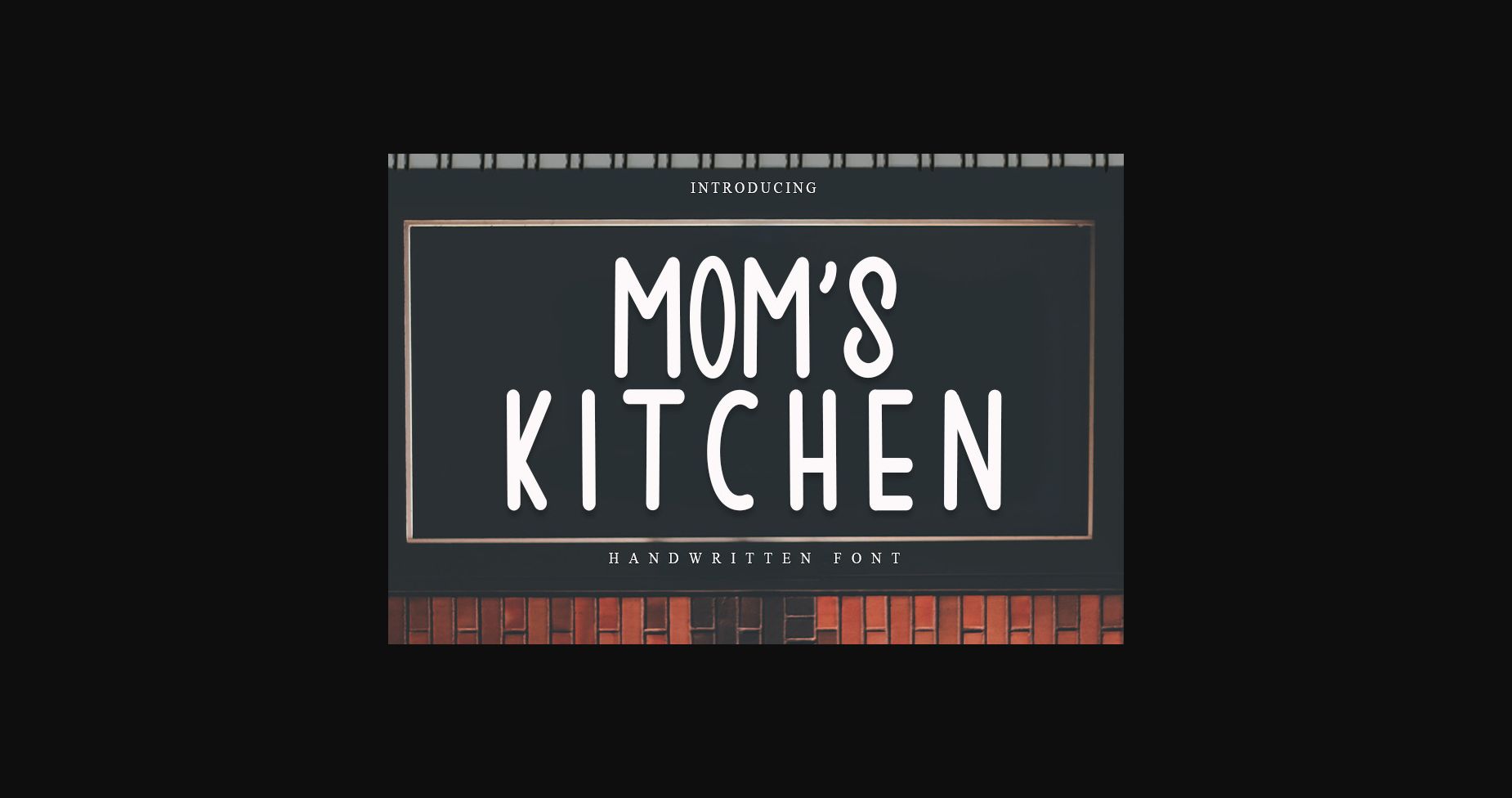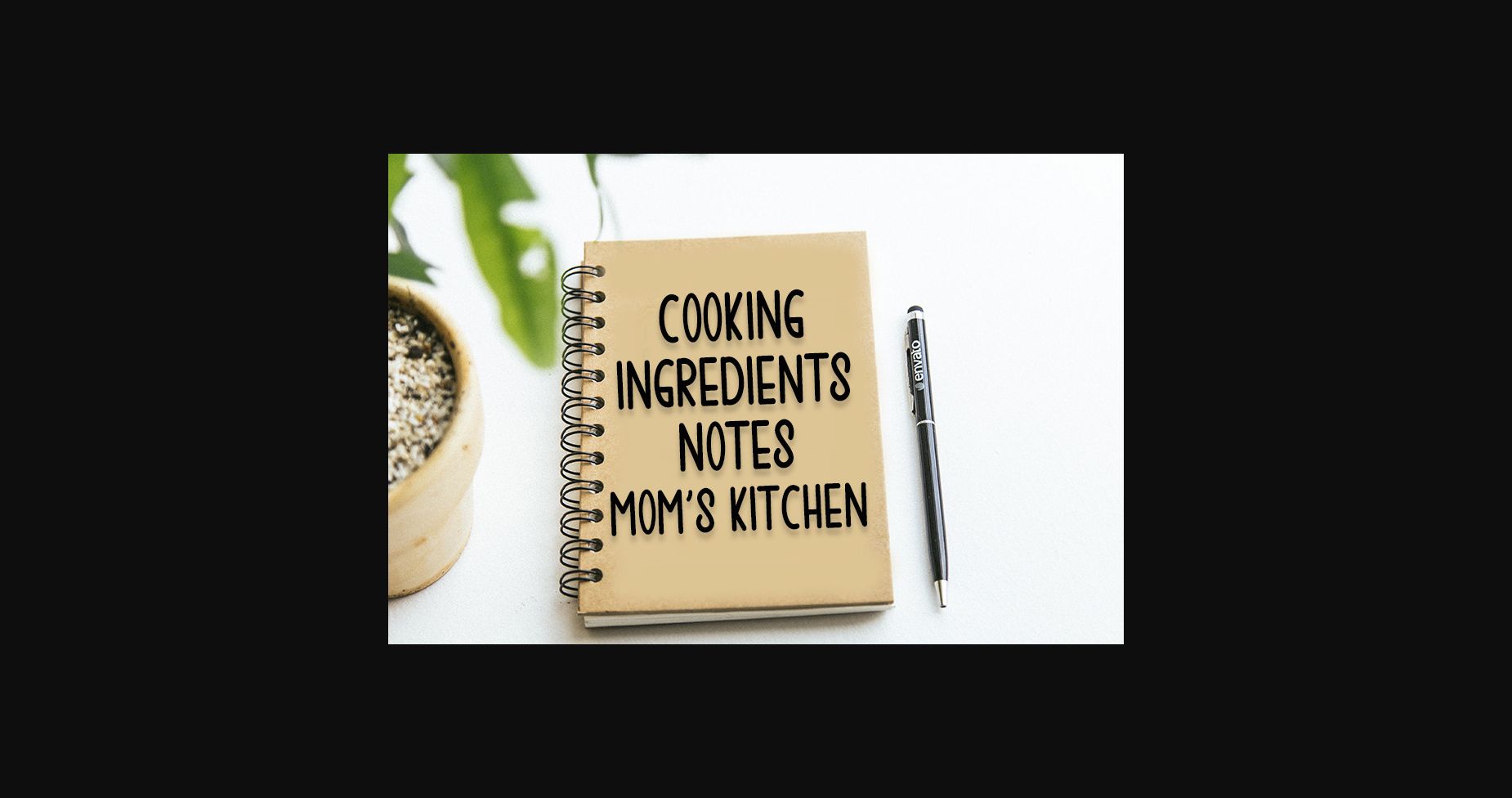
About Moms Kitchen Font
Moms Kitchen is a stylish sans serif font with a contemporary atmosphere and impeccable form, inspired by a timeless classic calligraphy. It will look outstanding in a wide range of contexts.